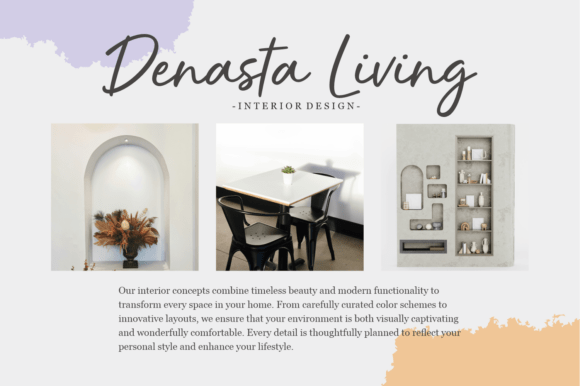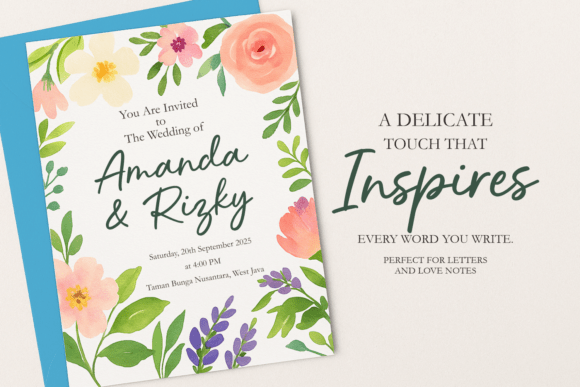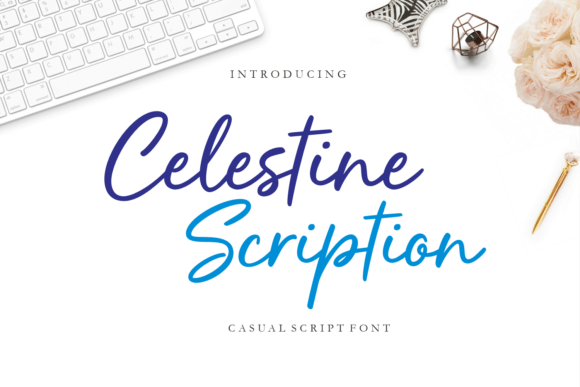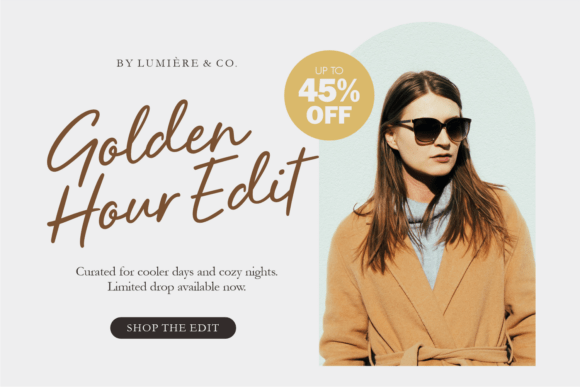
Celestine Scription Font
About the Celestine Scription Font
Presenting Celestine Scription Font, a unique and stylish typeface that will make your work stand out. Introducing Celestine Scription, a graceful yet effortlessly chic casual script font that captures the beauty of modern handwriting. With its smooth curves, elegant strokes, and natural flow, Celestine Scription is perfect for projects that need a personal, stylish touch.